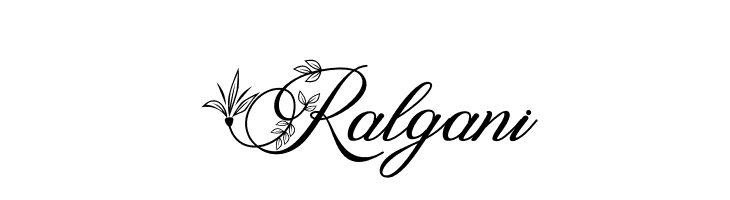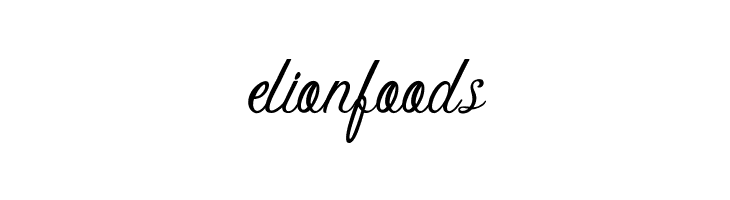
An elegant script font with ornate floral embellishments and high contrast strokes.
A dynamic and elegant cursive script font with a modern yet classic appeal.
A bold, modern sans-serif font with clean lines and high legibility.
A geometric, angular font with a modern and technical style.
A thin, elegant font with high contrast and artistic flair.
A bold, geometric font with sharp angles and a modern aesthetic.
A bold, 3D geometric font with a strong, shadowed outline.
A bold, edgy font with a hand-drawn, graffiti-inspired style.
A pictographic display font with pre-Columbian American themed illustrations.
A bold, geometric outline font with an italic slant, offering a futuristic and dynamic style.